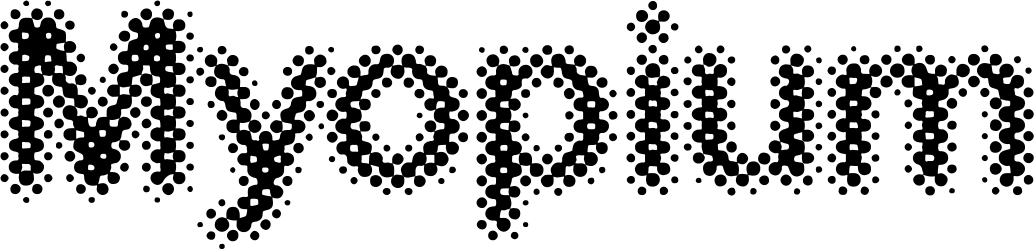
Myopium Font
Myopium is a distorted font that is designed with a dotty background, and also it does not support numbers or punctuation. Due to its exclusive look, it carries a sense of innovation, modernity, and futuristic, so you ca…
Myopium is a distorted font that is designed with a dotty background, and also it does not support numbers or punctuation. Due to its exclusive look, it carries a sense of innovation, modernity, and futuristic, so you can increase the efficiency of your work by using it to design LED boards, restaurant menus, and logos.